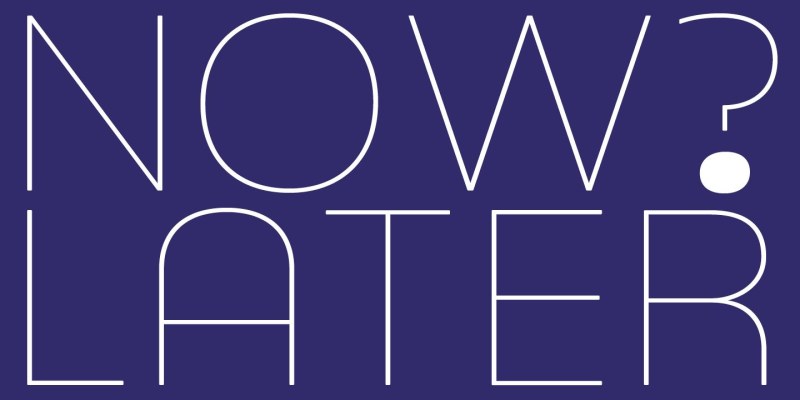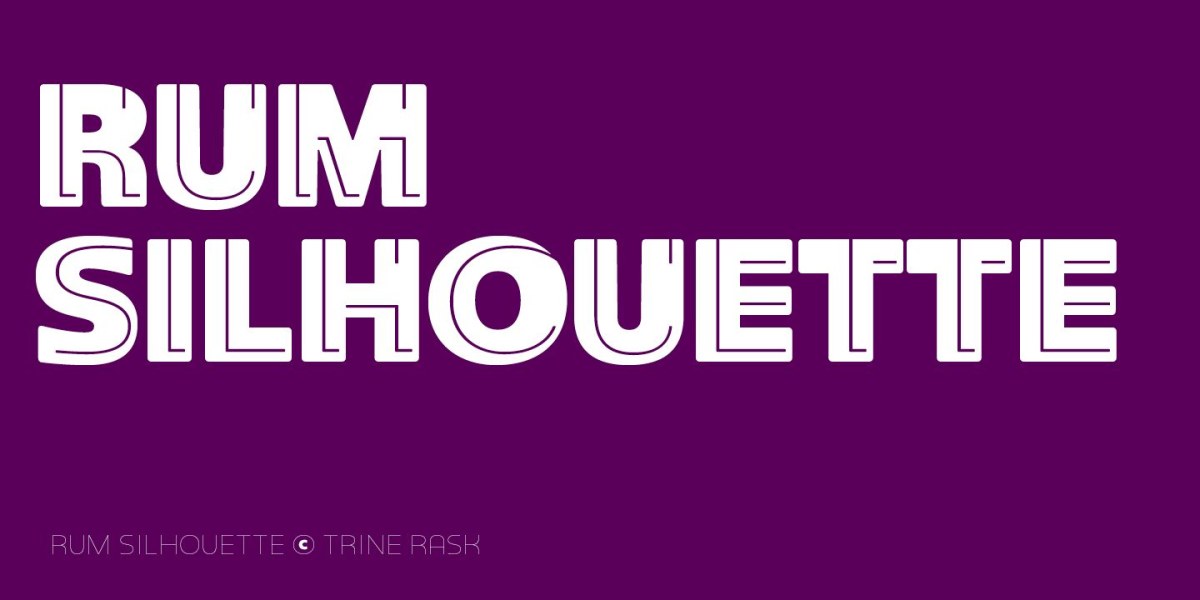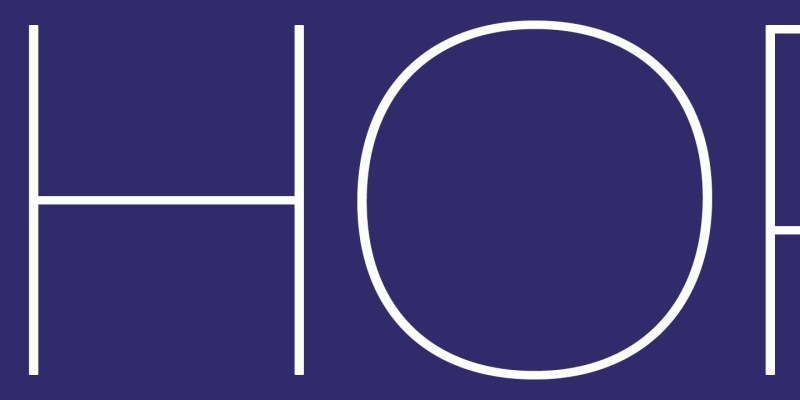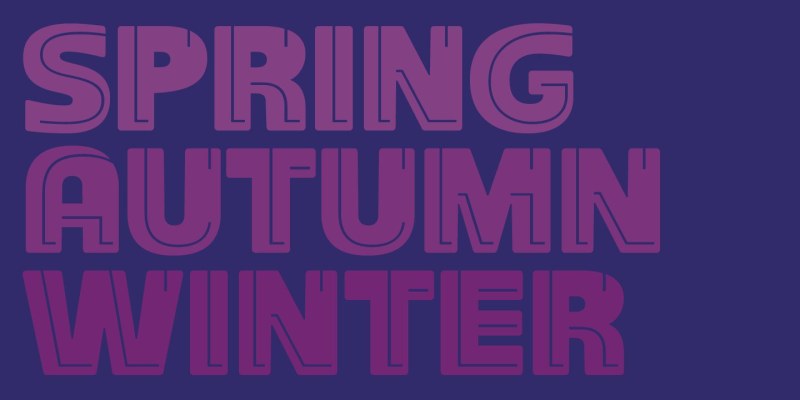
Rum Silhouette Font
Rum Silhouette is developed as a display face within the type family »Rum«. Rum Silhouette is a decorative all caps font, with uppercase letters based on Rum Soft Sans Black and a thin companion has replaced lowercase letters. It is suitable for posters and editorial design in large sizes. Includes two sets of numbers & punctuation marks that are in between. The complete family consists of sans serif & serif in both sharp and soft version.
Where Rum Silhouette Font works best
Rum Silhouette Font is built for size: event posters, hero headlines and billboard-style layouts.
High contrast display type like Rum Silhouette Font reads instantly in thumbnails and motion graphics.
What is Rum Silhouette Font good for?